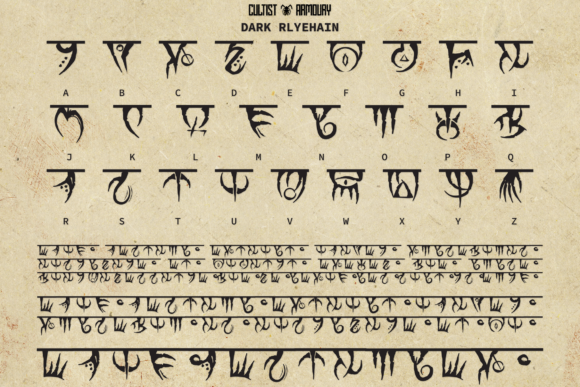
Step into a world of mystery and intrigue with Dark R'lyehain, a captivating decorative font inspired by the fictional language of R'lyehian. This spellbinding font, crafted by the imaginative mind of eichgr, emanates an aura of ancient secrets and forgotten lore, transporting you to the depths of H. P. Lovecraft's Cthulhu Mythos.
Imagine crafting fictional grimoires, conjuring occult props, or creating immersive handouts for roleplaying games. Dark R'lyehain's enigmatic characters dance across the page, whispering tales of forgotten civilizations and arcane knowledge. With its distinct charm, this font breathes life into your creative projects, adding a touch of otherworldly elegance.
But Dark R'lyehain's versatility extends beyond the realms of the mystical. Its distinct personality lends itself to a variety of design applications. Capture the essence of early printed texts, adding a touch of historical authenticity to your projects. Utilize its bold presence for emphasis and subtitles, or let it command attention as headlines and display elements.
Explore the depths of your creativity with Dark R'lyehain, a font that transcends the ordinary and unlocks new dimensions of expression. Let your imagination soar as you weave tales of mystery, unravel hidden truths, and craft stories that linger in the minds of your readers.